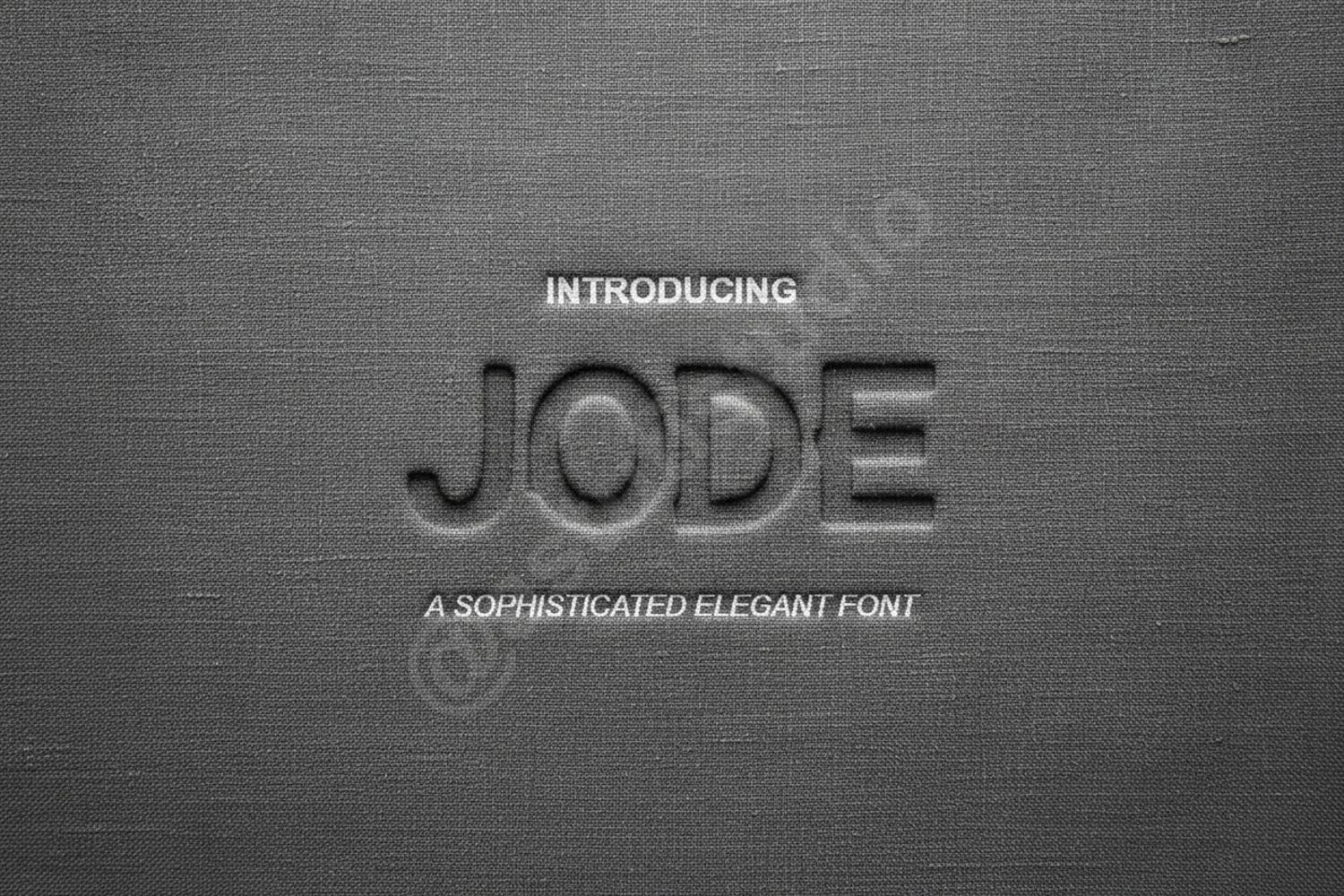
Jode - Elegant Modern Sans Serif Typeface
Jode
Jode is a premium sans serif typeface designed for those who value elegance and simplicity. With its clean lines and balanced proportions, this font offers a sophisticated aesthetic that elevates any creative project. Whether you are working on a high-end luxury brand or a minimalist editorial layout, Jode provides the versatility and clarity needed for professional results.
- Branding and Identity: Create memorable logos and cohesive brand guidelines.
- Editorial Design: Perfect for bold headlines in magazines and digital publications.
- Wedding Stationery: Add a contemporary touch to invitations and event menus.
- Social Media: Stand out with clean, highly readable typography for post graphics.
- Web Design: Ensure a professional look for headers and high-impact hero sections.